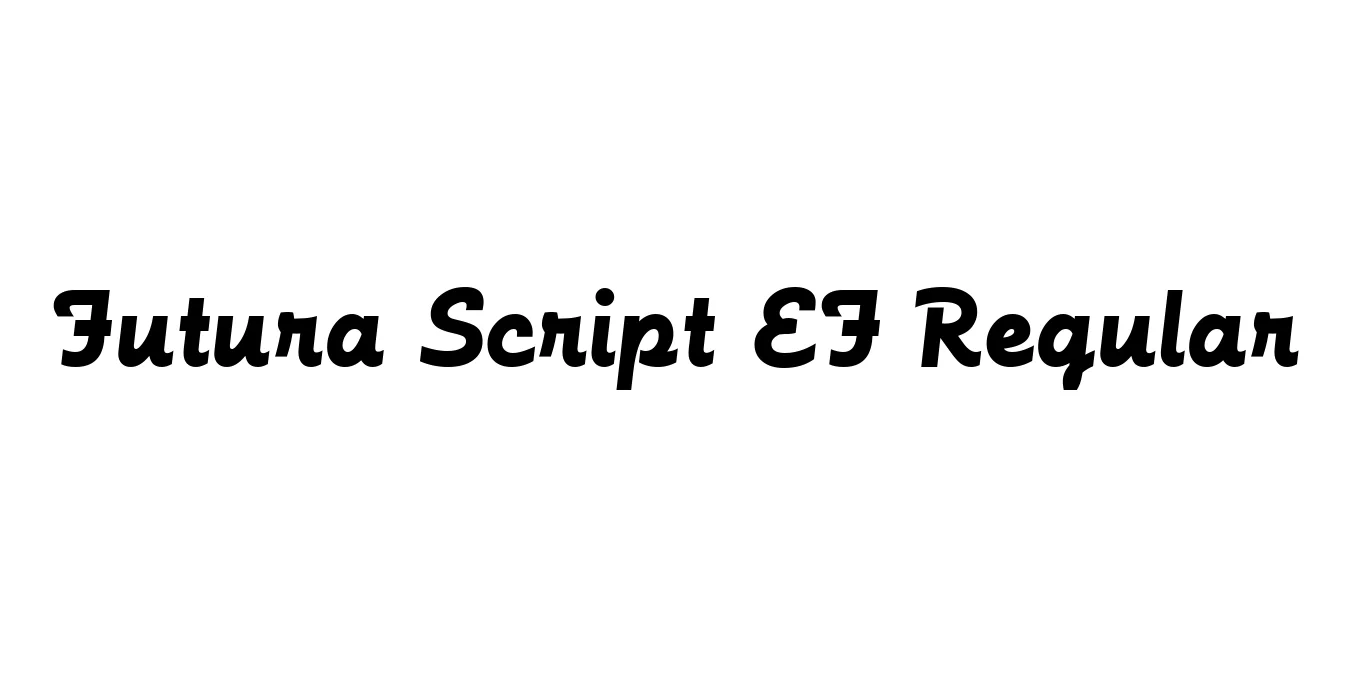
Futura Script EF Regular
Designed by Edwin Shaar
Futura Script EF Regular is a sophisticated extension of the iconic Futura typeface family, originally conceptualized by Paul Renner. Unlike the primary geometric sans-serif fonts, the Script version was designed by Edwin Shaar in 1954 to provide a monolinear, connecting cursive alternative that maintains the geometric purity of the original series. This specific version, digitized and refined by the Elsner+Flake (EF) foundry, preserves the harmonious balance between mathematical precision and humanistic handwriting.
The font is characterized by its consistent stroke weight and rhythmic flow, making it a standout choice for mid-century modern aesthetics. Because it avoids the dramatic thick-and-thin contrast seen in traditional calligraphy, Futura Script EF remains highly legible even in display settings. It serves as a bridge between functional typography and decorative flair, often utilized in high-end branding and editorial design to convey a sense of structured elegance.
Futura Script EF Regular Best Uses
Ideal for creating sophisticated logos and brand identities that require a mid-century touch.
Perfect for modern wedding stationery or professional event announcements.
Excellent for catchy, stylish headlines in print and digital marketing campaigns.
Adds a premium feel to cosmetic, fashion, and artisanal food product labels.